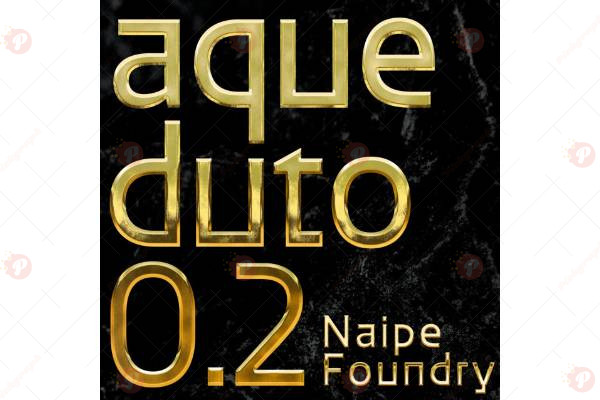
The Aqueduto Font Free is a stylish and bold display typeface that combines modern aesthetics with unique design details. Its strong letterforms make it ideal for logos, posters, packaging, headlines, event branding, and digital graphics.
Perfect for designers who want to create a striking and memorable look, Aqueduto Font Free works beautifully in both digital and print projects. Whether you’re crafting a brand identity, a promotional poster, or social media visuals, this typeface ensures your design stands out with creativity.
Typeface: Display / Creative
Style: Bold / Stylish / Modern / Unique